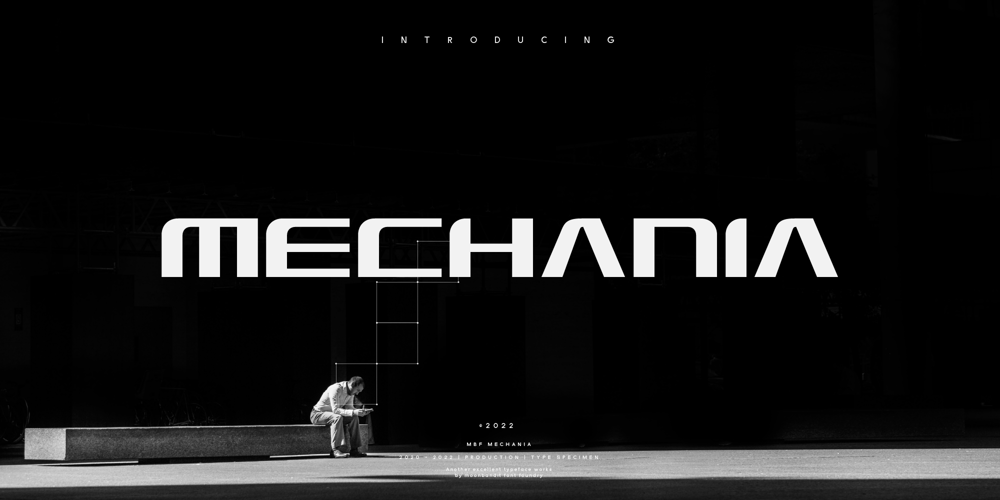
MBF Mechania Font Family was designed by Bramaji Dipa Manggala and published by Moonbandit. MBF Mechania contains 1 styles and family package options. Mechania is a geometric sans serif display font. Bold and wide design gives this typeface a strong presence. Balance in the round and sharp edge to keep the clarity. Best use for a modern minimalist theme, other usage includes logo, poster, display, headline, t-shirt design and many more.